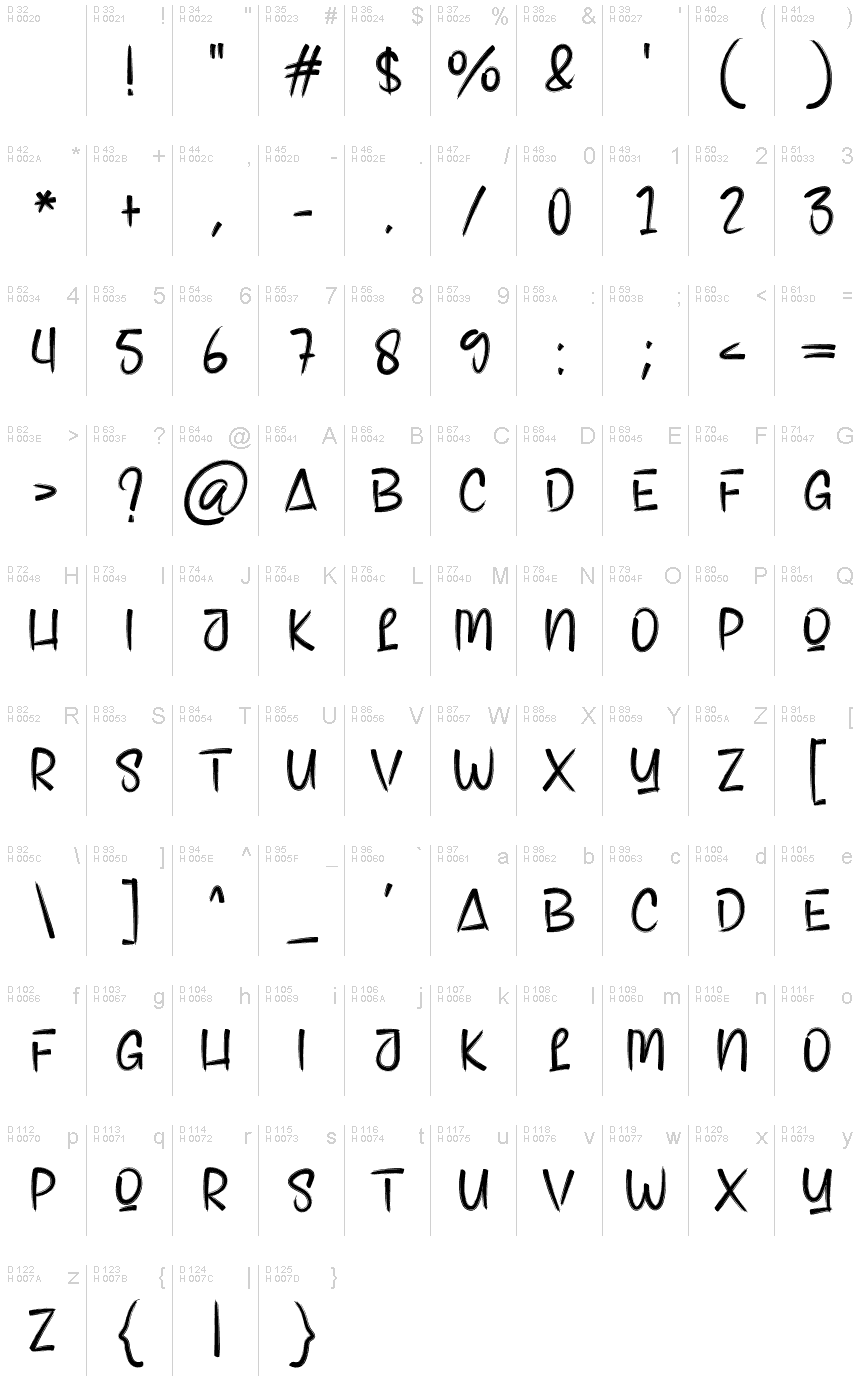
Handle
Handle is a captivating calligraphy font created by Inermedia Studio. With its semi-bold weight, this font exudes elegance and sophistication in every stroke. Its graceful curves and fluid lines make it suitable for a wide range of projects, from wedding invitations and luxury brand logos to editorial designs and packaging. Handle adds a touch of refinement to any design, effortlessly blending tradition with modernity. This versatile font typeface is perfect for those seeking to elevate their projects with a hint of artistic flair and timeless beauty.